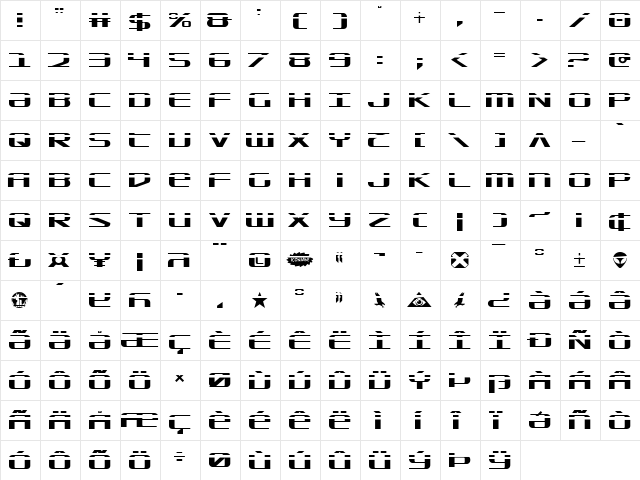
SDF Laser Laser
Design Context for SDF Laser Typeface
SDF Laser is a composed and adaptable typeface that performs quietly and consistently across a wide range of design contexts.
Pro Tip: Use SDF Laser in both headline and body roles to test its range before committing to a single application.